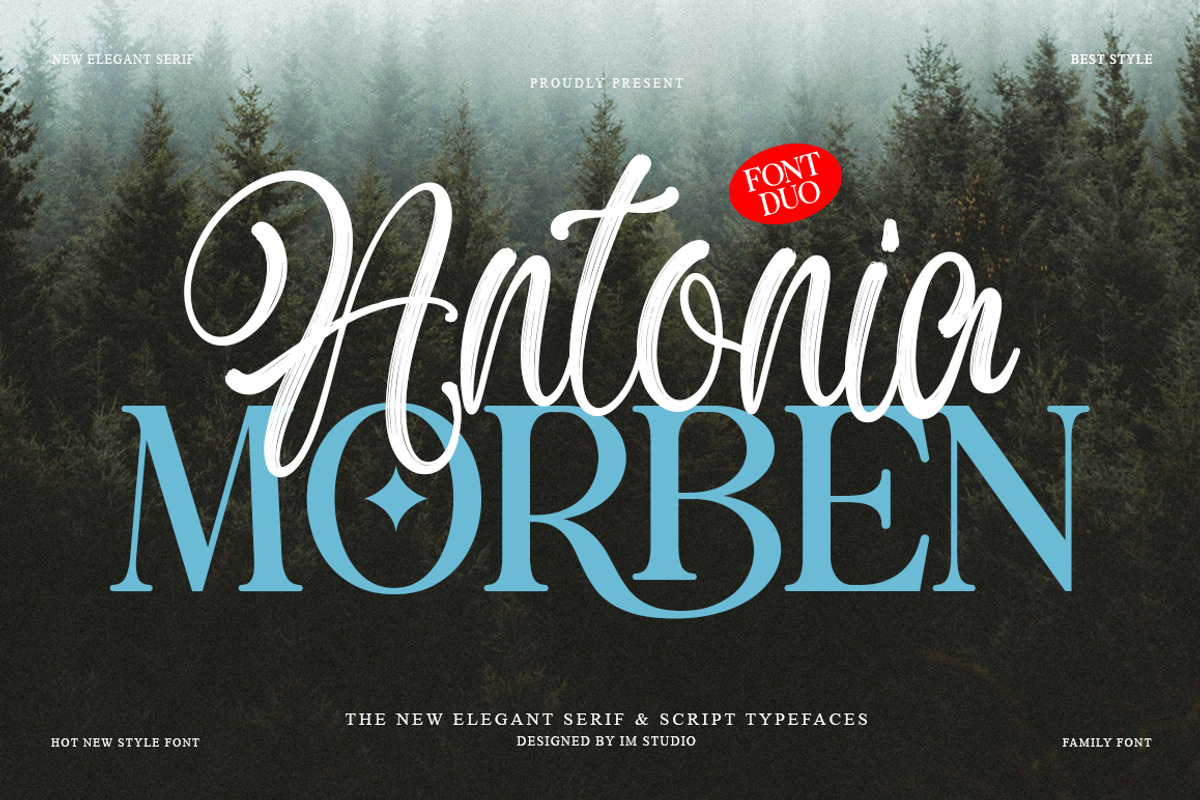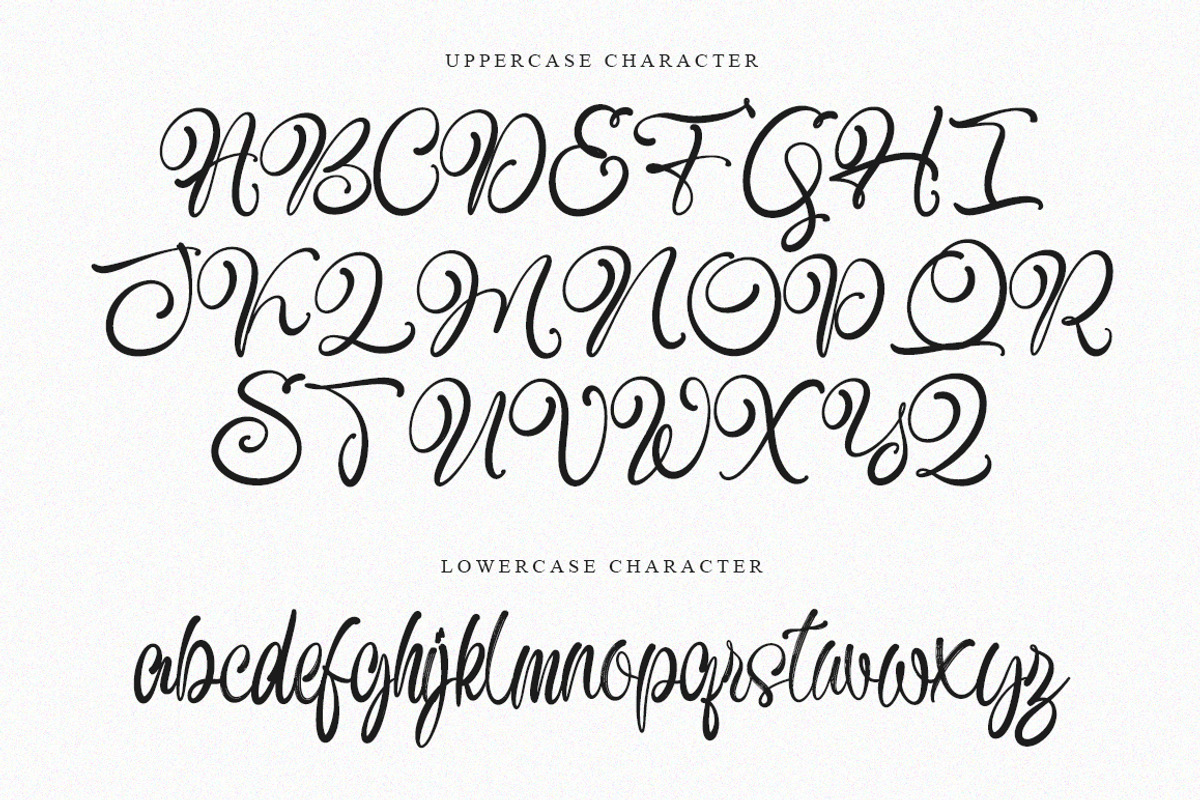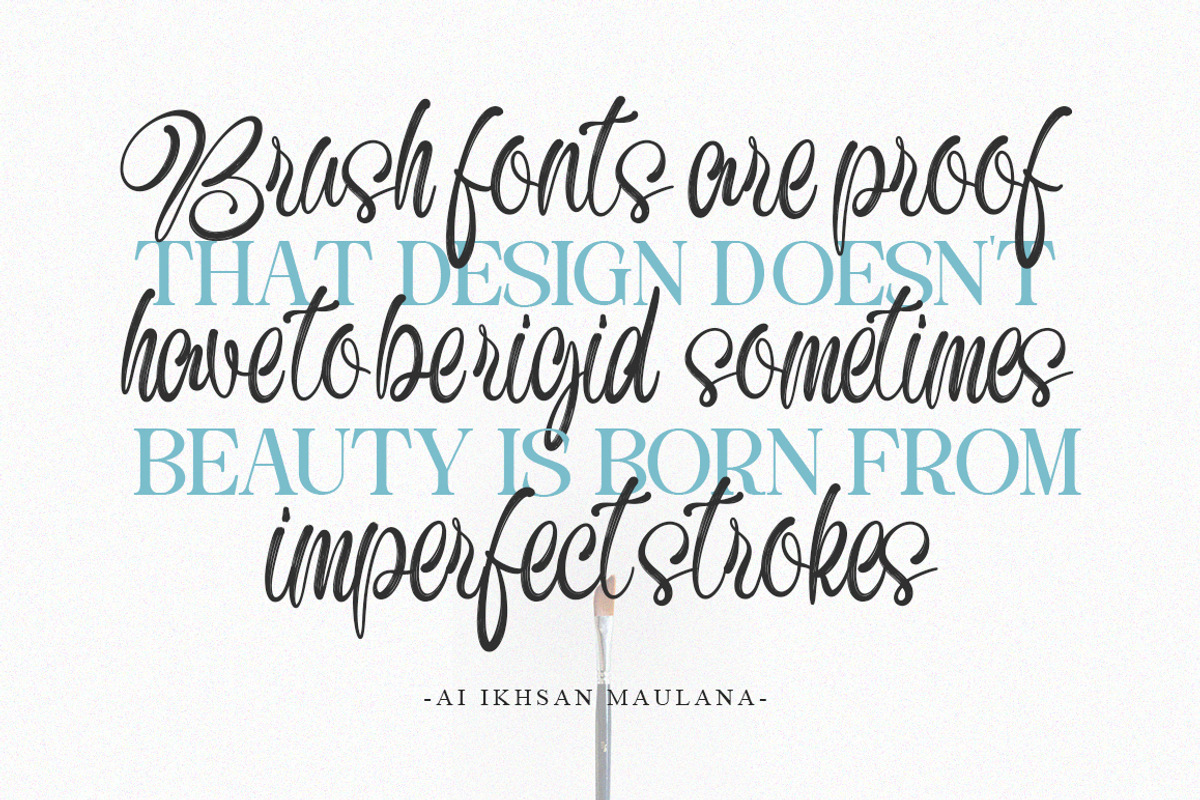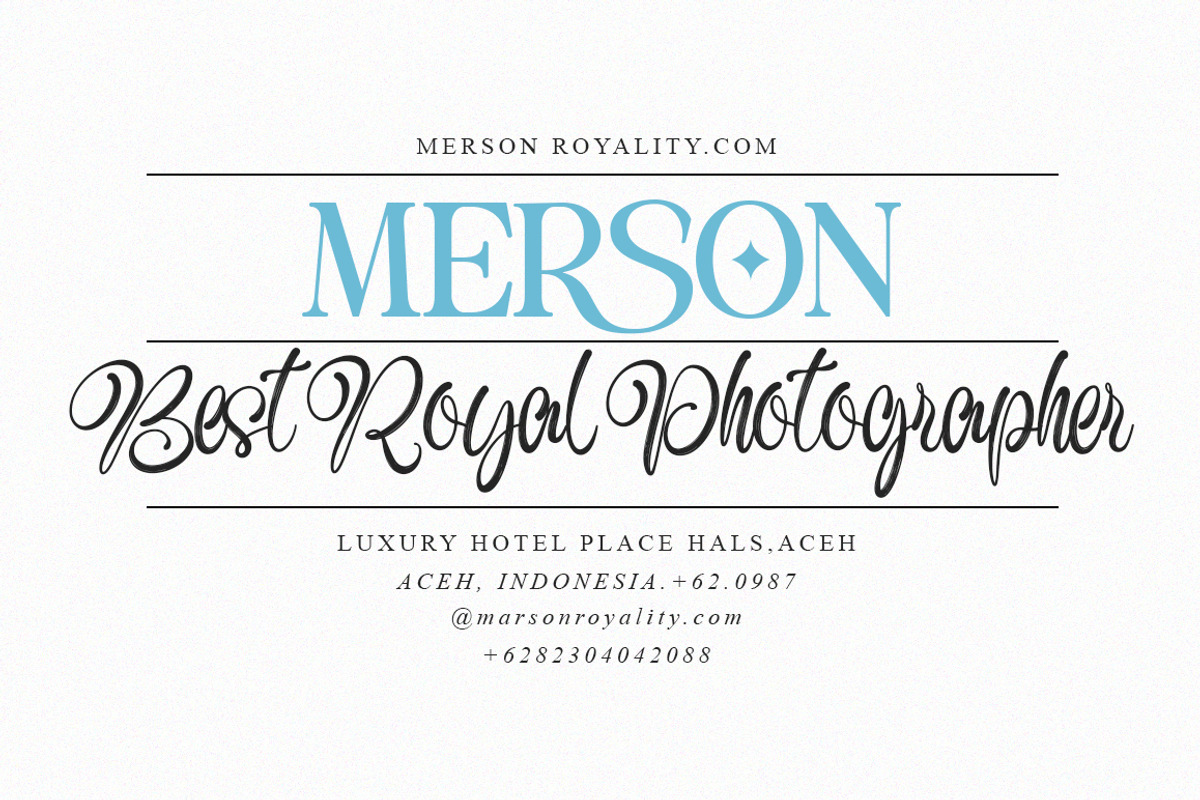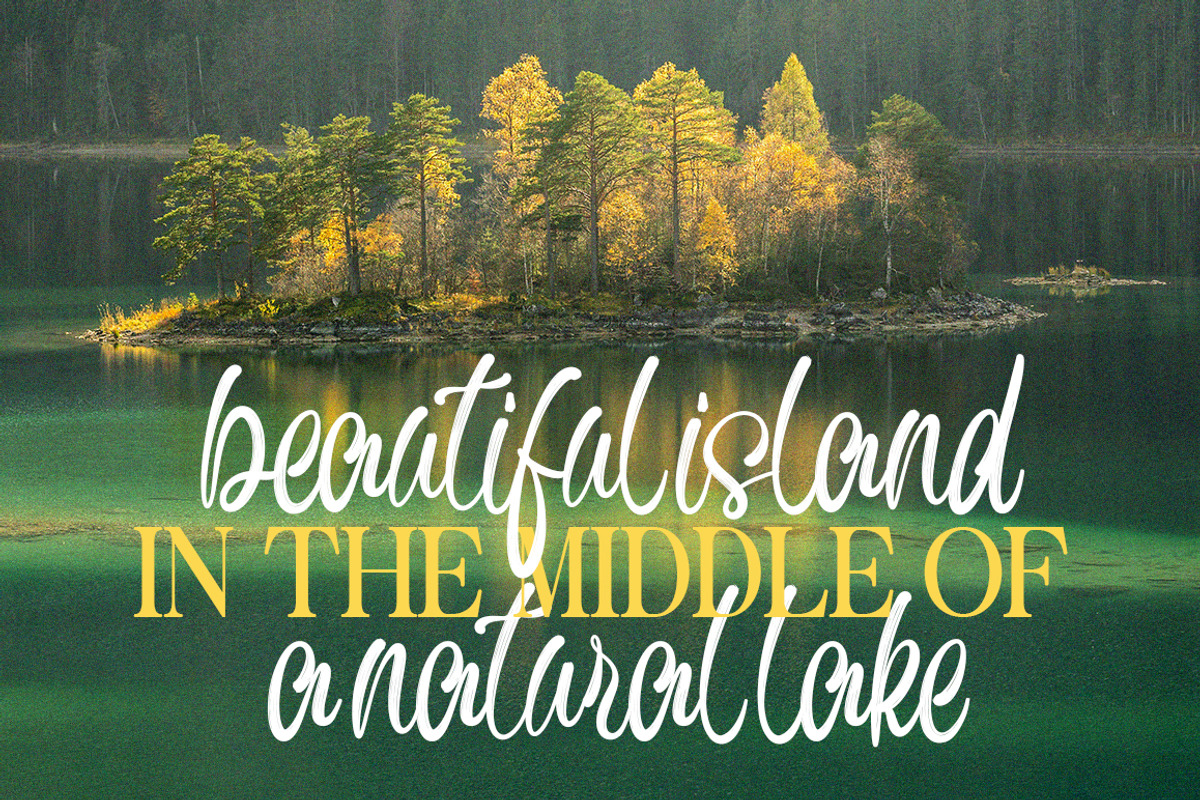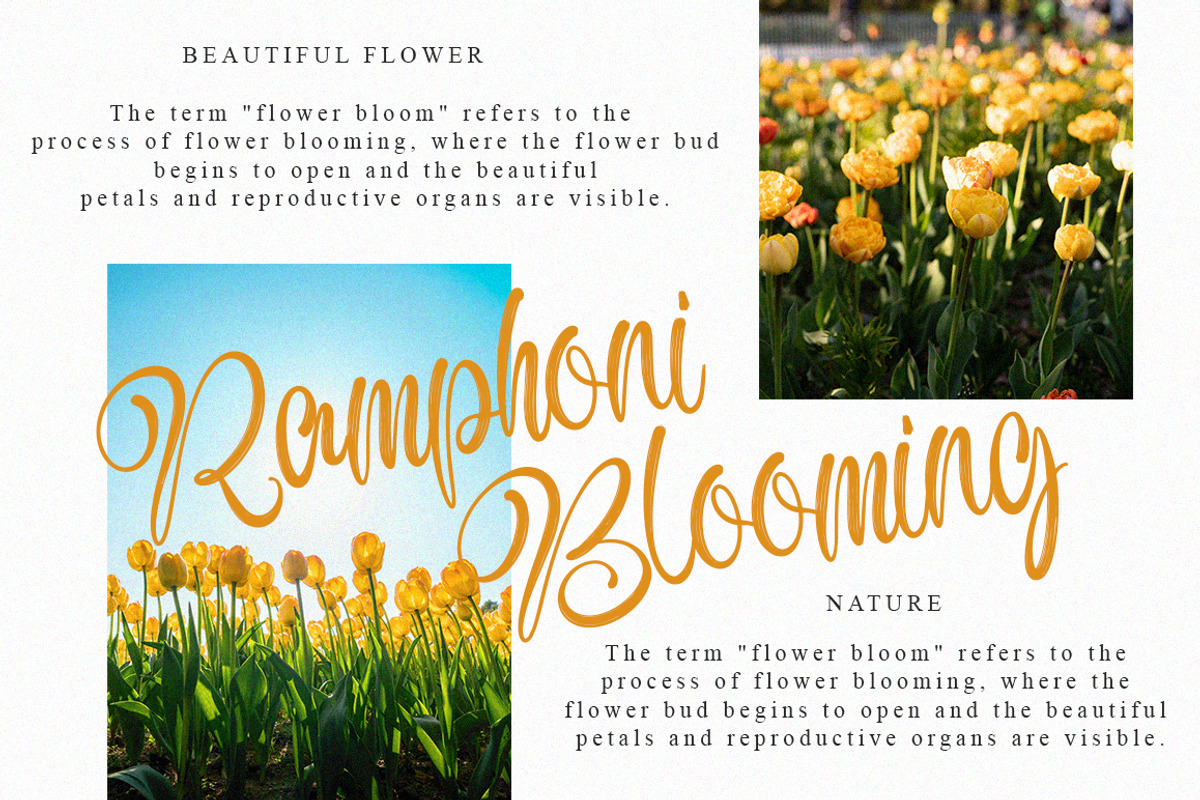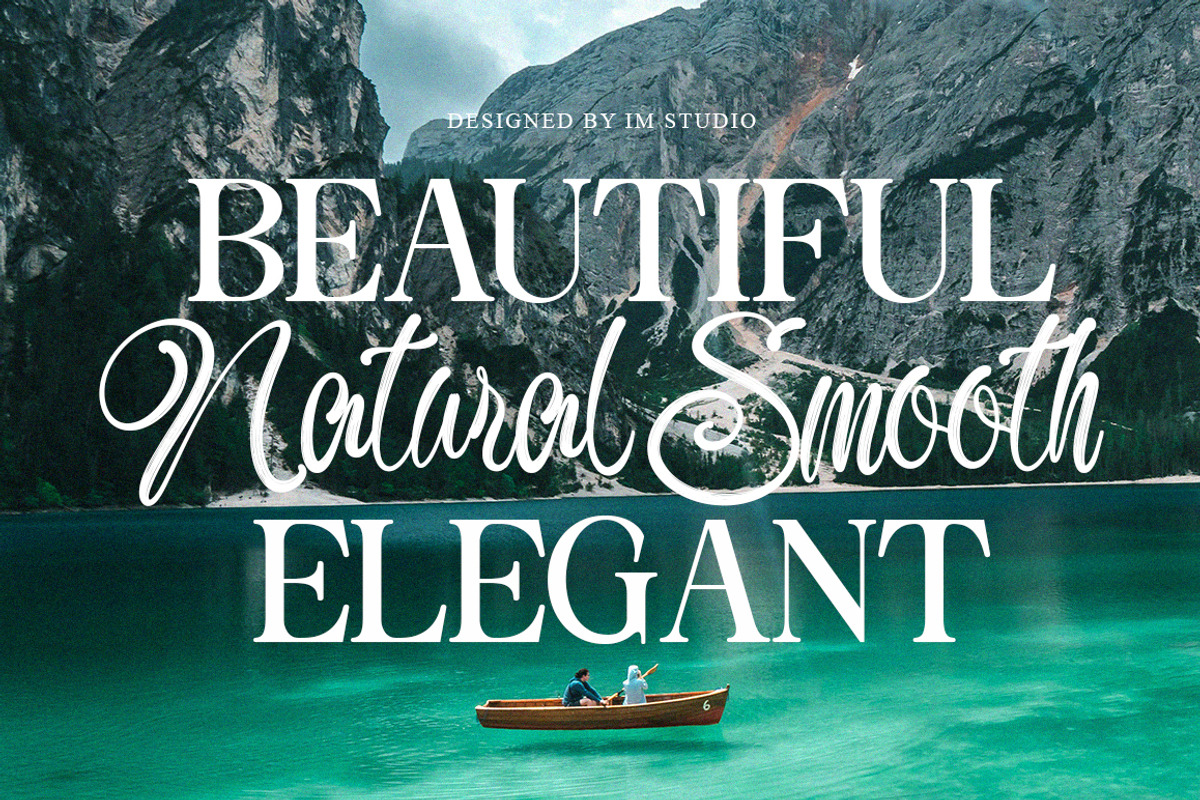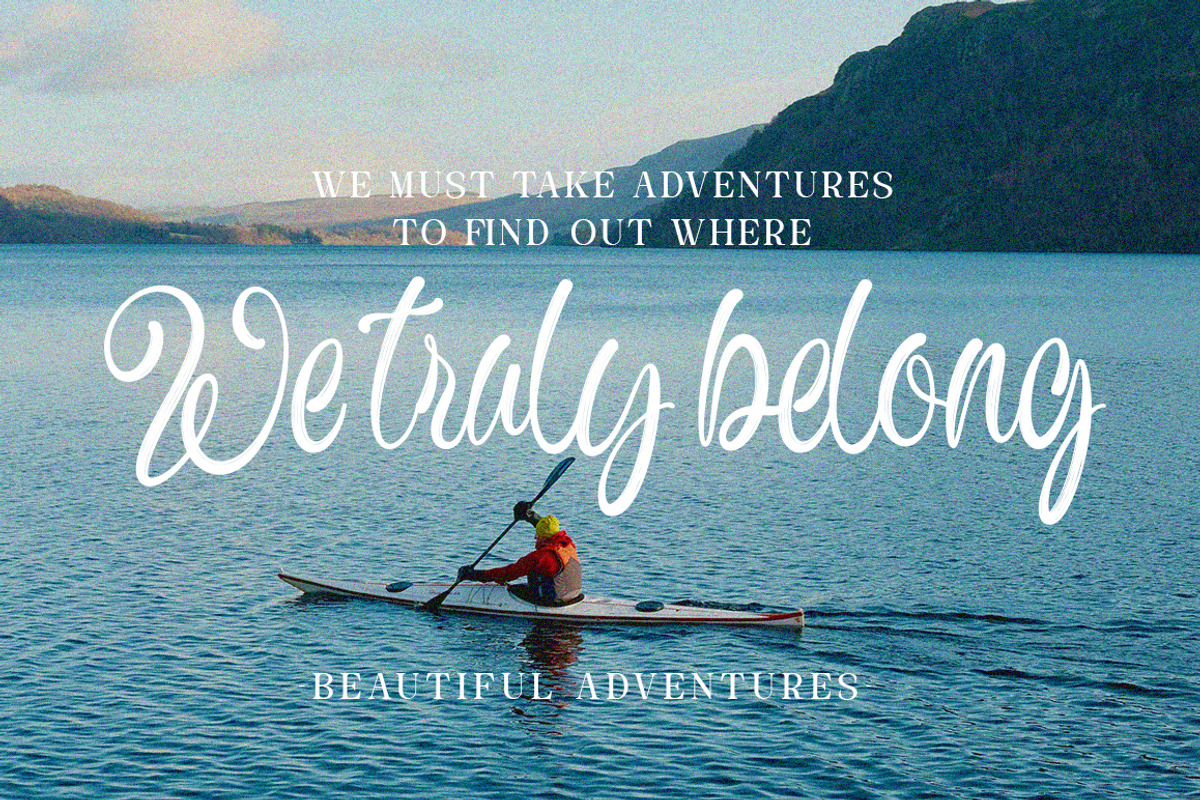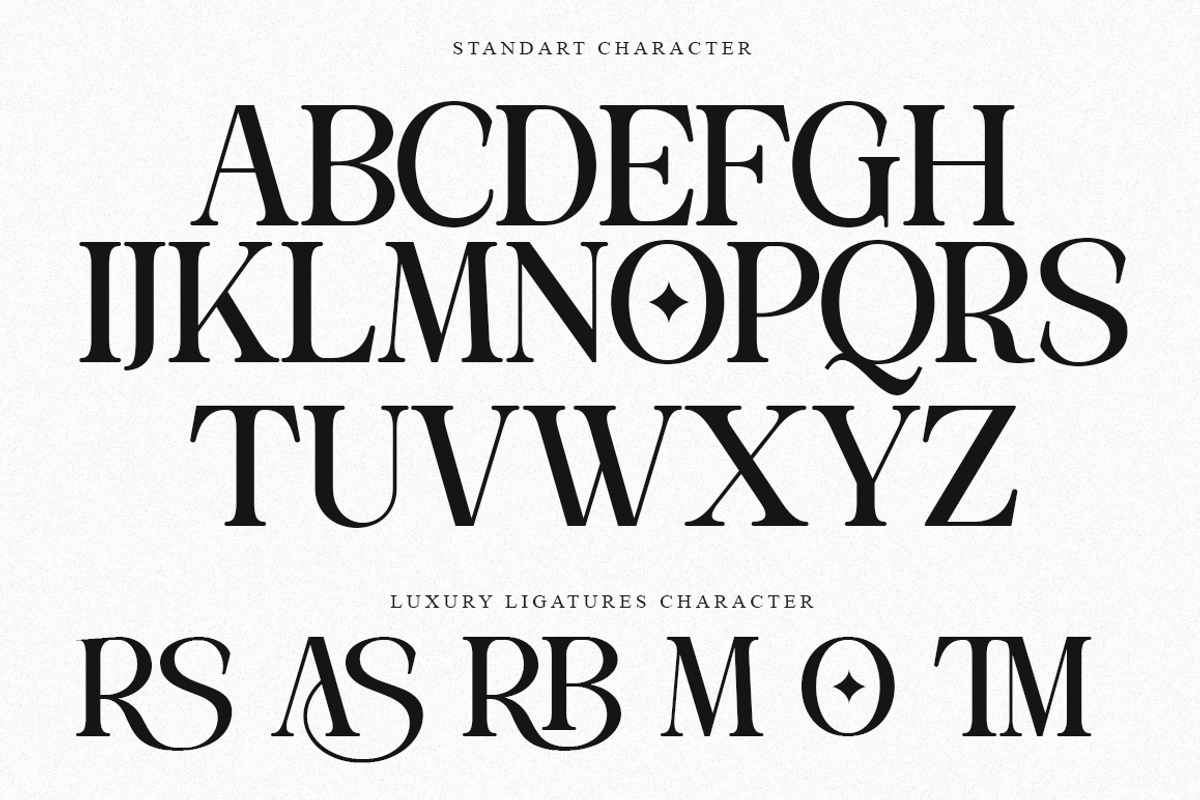
Antonia Morben Font Duo
Antonia Morben — The Perfect Font Duo
Antonia Morben is a charming and cheerful font duo that blends delightful simplicity with an elegant handwritten style. The combination of a tall, clean serif font (Antonia Morben) and a smooth, flowing script font (Antonia Morben Script) creates a delightful balance—sweet, modern, and full of personality.
Antonia Morben is bright and cheerful with its tall, rounded letters—perfect for serif headlines, quotes, and branding that requires a friendly, approachable feel.
Antonia Morben's script font complements it beautifully, adding a personal touch of handwritten letters with its soft curves and graceful connections. Together, they form a naturally harmonious pair that feels organic and uplifting.
Ideal for logos, invitations, packaging, social media, and DIY projects, this duo brings warmth and positivity to any design. Add a touch of sweetness and elegance—Antonia Morben makes your words bloom with personality.
– Combination of Serif and Handwritten Fonts
– Perfect Contrast for Modern Designs
– Suitable for Branding, Invitations, and Social Media
– Clean, Friendly, and Versatile Aesthetic
– Capital Letters, Lowercase Letters, Numbers, and Punctuation